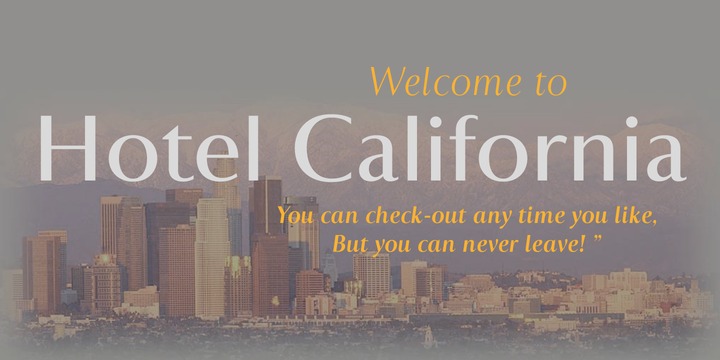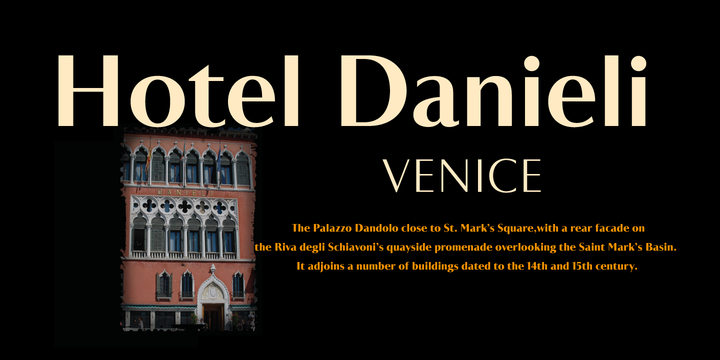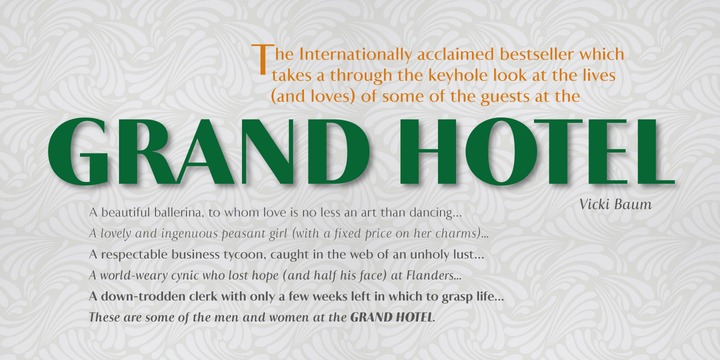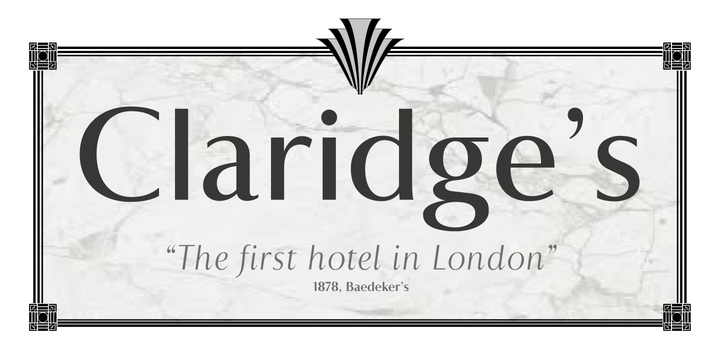
Astoria Classic Sans Font Family
About this font family
The latest addition to the Astoria Range, Astoria Classic Sans has the same basic Characteristics as Astoria but with vertical stress. A sans-serif companion to Astoria Sans. Unlike Astoria, but like Astoria Classic, the Italics in form are old style yet with a modern look. Designed specificaly as a text face it still works very well as a headline font.